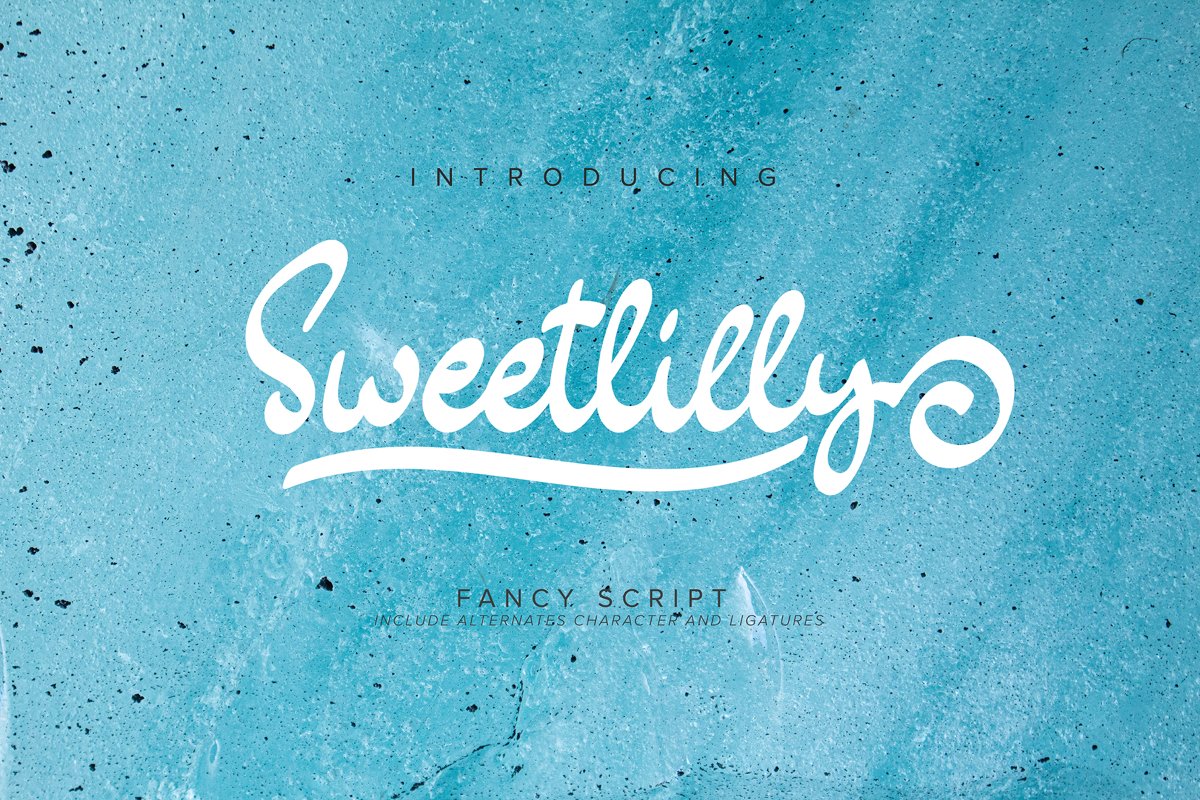
Sweetlilly | Fancy Script
Sweetlilly
**Sweetlilly | Fancy Script** with a calligraphy style, So beautiful on invitation like greeting cards, branding materials, business cards, quotes, posters, and more!
The alternative characters were divided into several Open Type features such as Stylistic Sets, Stylistic Alternates, Contextual Alternate, SWASH and Ligature. The Open Type features can be accessed by using Open Type savvy programs such as Adobe Illustrator, Adobe InDesign, Adobe Photoshop Corel Draw X version, And Microsoft Word. And this Font has given PUA unicode (specially coded fonts). so that all the alternate characters can easily be accessed in full
* Tons of glyphs
* Alternates and Ligatures
* **PUA Encoded Characters** - Fully accessible without additional design software.
* Fonts include **Multilingual Support**